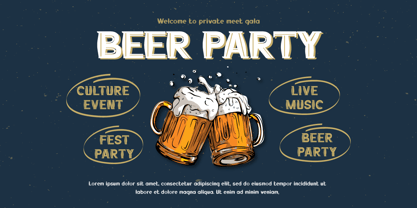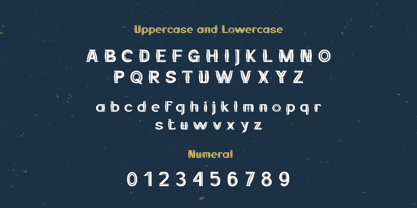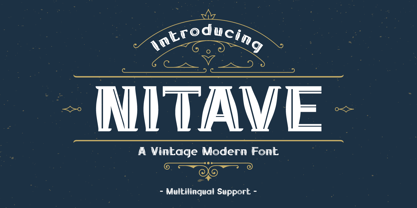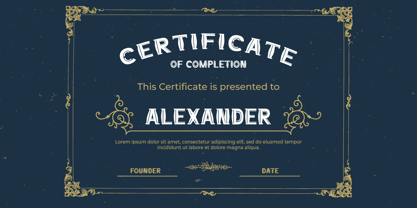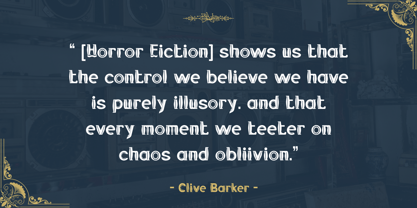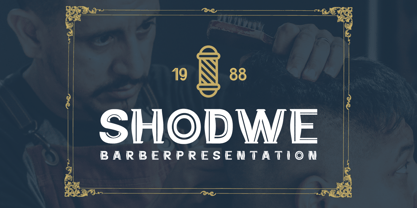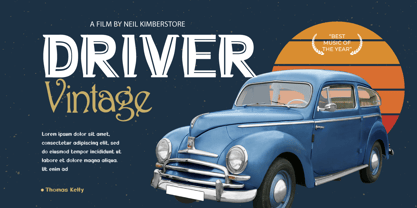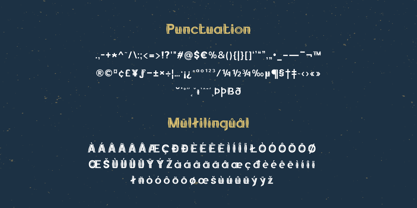
Nitave
Nitave is a font that tells a story. This vintage font brings a touch of the past to your designs, creating a sense of nostalgia that is both charming and effective. Its unique, vintage-inspired characters are perfect for creating designs with a nostalgic feel, whether it’s a retro-themed poster or a logo for a vintage clothing store. With Nitave, your designs will tell a story that captivates your audience.
- Fonts include Multilingual: Support for 85 languages.
Afrikaans, Albanian, Asu, Basque, Bemba, Bena, Breton, Catalan, Chiga, Cornish, Croatian, Czech, Danish, Dutch, Embu, English, Esperanto, Estonian, Filipino, Finnish, French, Friulian, Galician, Gusii, Hungarian, Indonesian, Irish, Italian, Kabuverdianu, Kalenjin, Kamba, Kikuyu, Kinyarwanda, Latvian, Lithuanian, Lower, Sorbian, Luo, Luxembourgish, Luyia, Machame, Makhuwa-Meetto, Makonde, Malagasy, Maltese, Manx, Meru, Morisyen, North, Ndebele, Norwegian Bokmål, Norwegian Nynorsk, Nyankole, Oromo, Polish, Portuguese, Quechua, Romanian, Romansh, Rombo, Rundi, Rwa, Samburu, Sango, Sangu, Scottish, Gaelic, Sena, Serbian, Shambala, Shona, Slovak, Slovenian, Soga, Somali, Spanish, Swahili, Swedish, Swiss German, Taita, Teso, Turkish, Upper Sorbian, Uzbek (Latin), Volapük, Vunjo, Walser, Zulu.